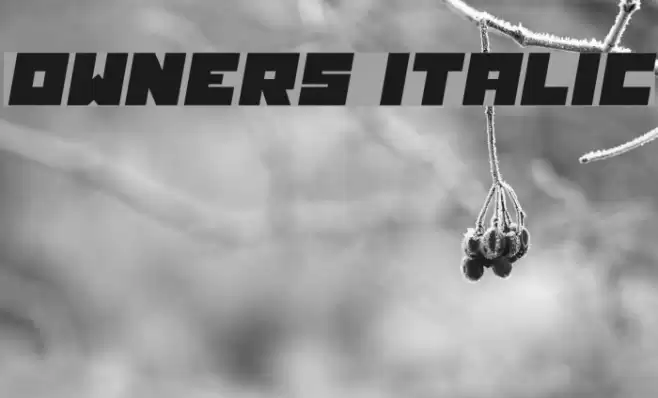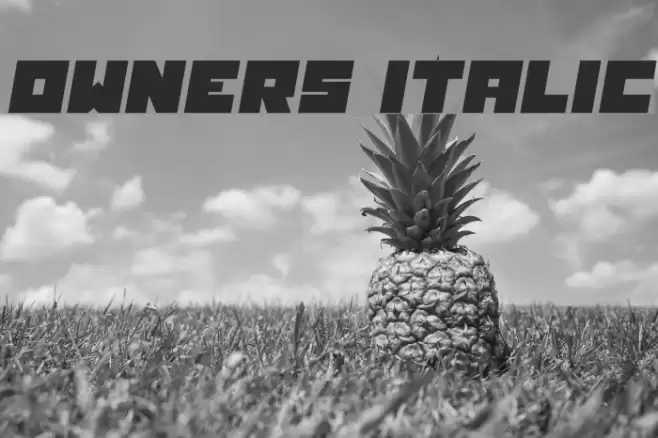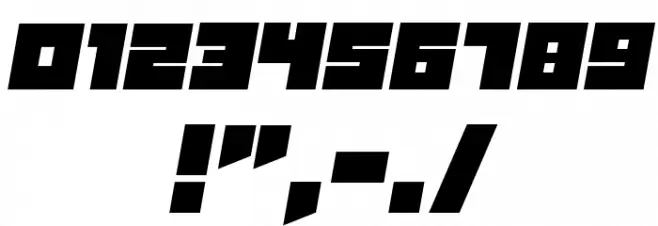
Owners Italic Font
Owners Italic Description
This font features a bold and dynamic design with a strong, angular structure. Each character is crafted with a forward-leaning stance, giving it a sense of motion and energy. The thick strokes and sharp edges contribute to its commanding presence, making it ideal for impactful headlines and attention-grabbing designs. The uppercase and lowercase letters maintain a consistent style, while the numerals and special characters complement the overall aesthetic. The font's boldness and italicized form create a unique blend of strength and style, perfect for projects that require a modern and assertive look.
A bold, italicized font with angular, dynamic characters from Uncategorized fonts.
- Proposed Projects: Ideal for sports branding, action movie posters, dynamic advertisements, and modern logo designs.